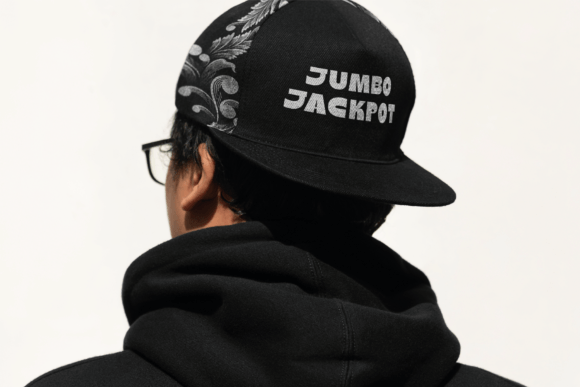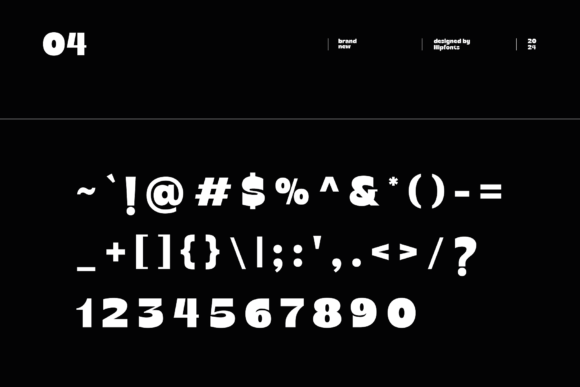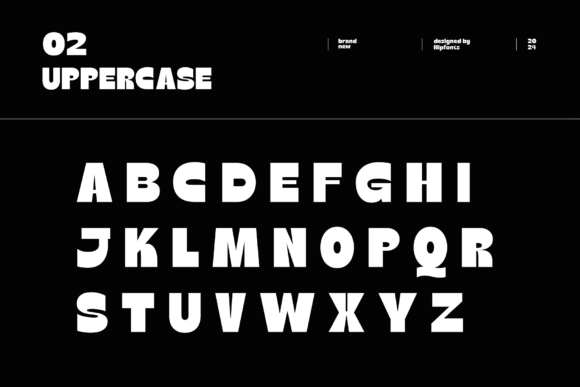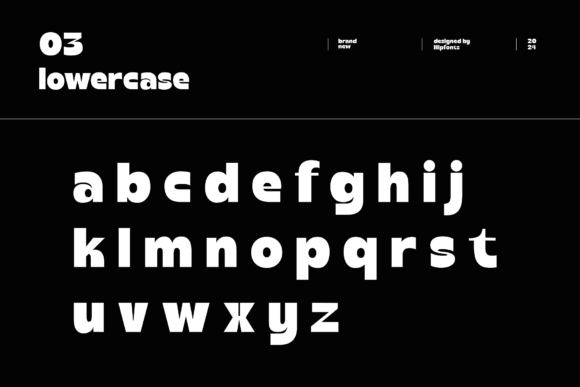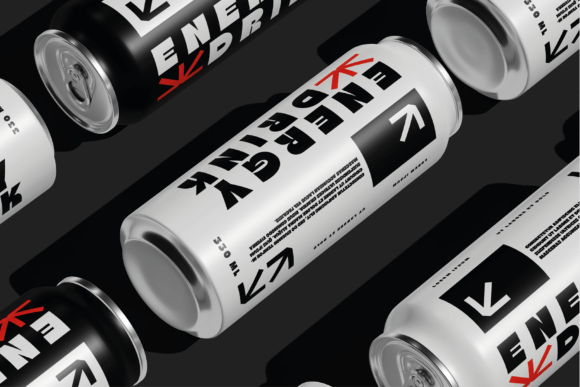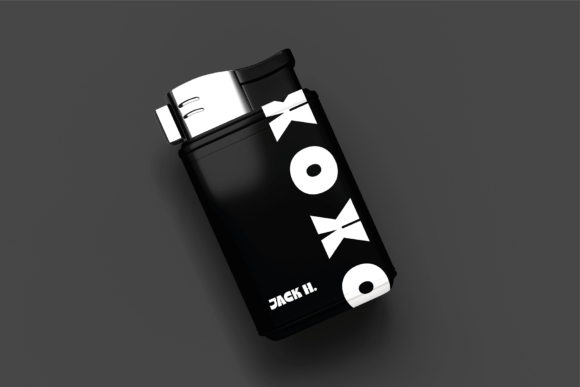
Introduction to Jumbo Jackpot Font Font
Fonts play a crucial role in design, and the Jumbo Jackpot Font font is a typeface that brings both character and versatility to any project. Whether you’re working on a branding project, a website, or a print design, the Jumbo Jackpot Font font offers a unique style that can elevate your work.
Introducing Jumbo Jackpot, the typeface designed to make a bold statement.
This modern, thick, and bold typeface is perfect for those looking to add a touch of quirkiness and playfulness to their projects Whether youβre designing eye-catching headlines, vibrant posters, or unique branding materials, Jumbo Jackpot delivers unmatched impact and personality.
Key Features of Jumbo Jackpot Font Font
Why Choose Jumbo Jackpot Font Font?
The Jumbo Jackpot Font font is more than just a typeface β it’s a design tool that helps you communicate your message with style and clarity. Its unique character set and versatile design make it suitable for a wide range of applications, from elegant invitations to bold headlines.
With its carefully crafted letterforms and balanced proportions, the Jumbo Jackpot Font font ensures readability and visual appeal across all mediums.
What makes Jumbo Jackpot Font font special?
The Jumbo Jackpot Font font stands out with its unique design, exceptional readability, and versatility across various design applications.